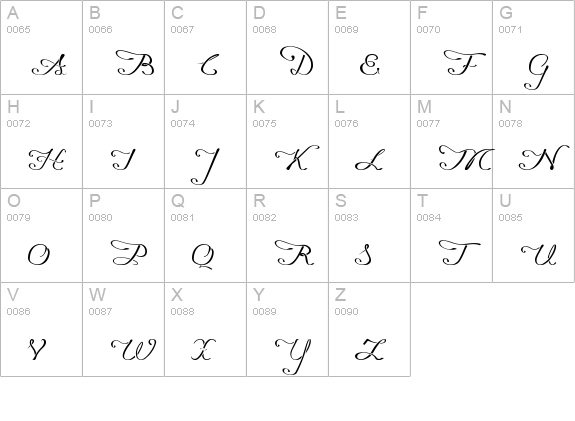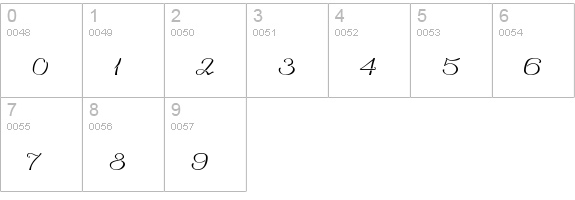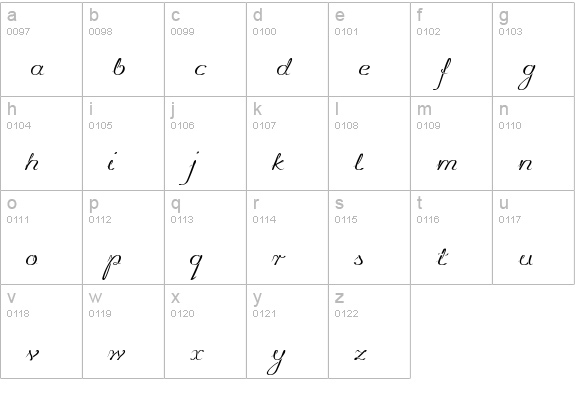
Promocyja Regular Font Details
Promocyja Regular is the standard, neutral variant in the Promocyja typeface family \xE2\x80\x94 well suited to general body text, paragraphs, and standard typographic work.
Promocyja Regular is a free for personal use font in the Script > Calligraphy category. It has been downloaded 114 times and is available for Windows, Mac and Linux.
Promocyja Regular font is a stunning typeface that effortlessly combines elegance with modernity. With its clean lines and graceful curves, this font is perfect for adding a touch of sophistication to any design project. This versatile font is suitable for a wide range of applications, from branding and advertising to web design and print materials. Its legibility and attention to detail make it ideal for both headlines and body text, ensuring that your message is conveyed with clarity and impact. One of the standout features of Promocyja Regular font is its versatility. It can be used in a variety of contexts, from formal business presentations to creative and artistic endeavors. Whether you're designing a professional logo or crafting a stylish invitation, this font will help you achieve a polished and refined look. But what makes Promocyja Regular font even more appealing is that it is freely available to download at FontsMarket.com. Yes, you read that right - this high-quality font can be yours without any cost. FontsMarket.com offers a vast collection of fonts, and Promocyja Regular font is just one of the many options available for you to explore. So why wait? Take advantage of this fantastic opportunity and elevate your designs with Promocyja Regular font. With its timeless appeal and its availability for free, it's a font that you simply can't afford to miss. Download Promocyja Regular font today and see how it can transform your creative projects into works of art.